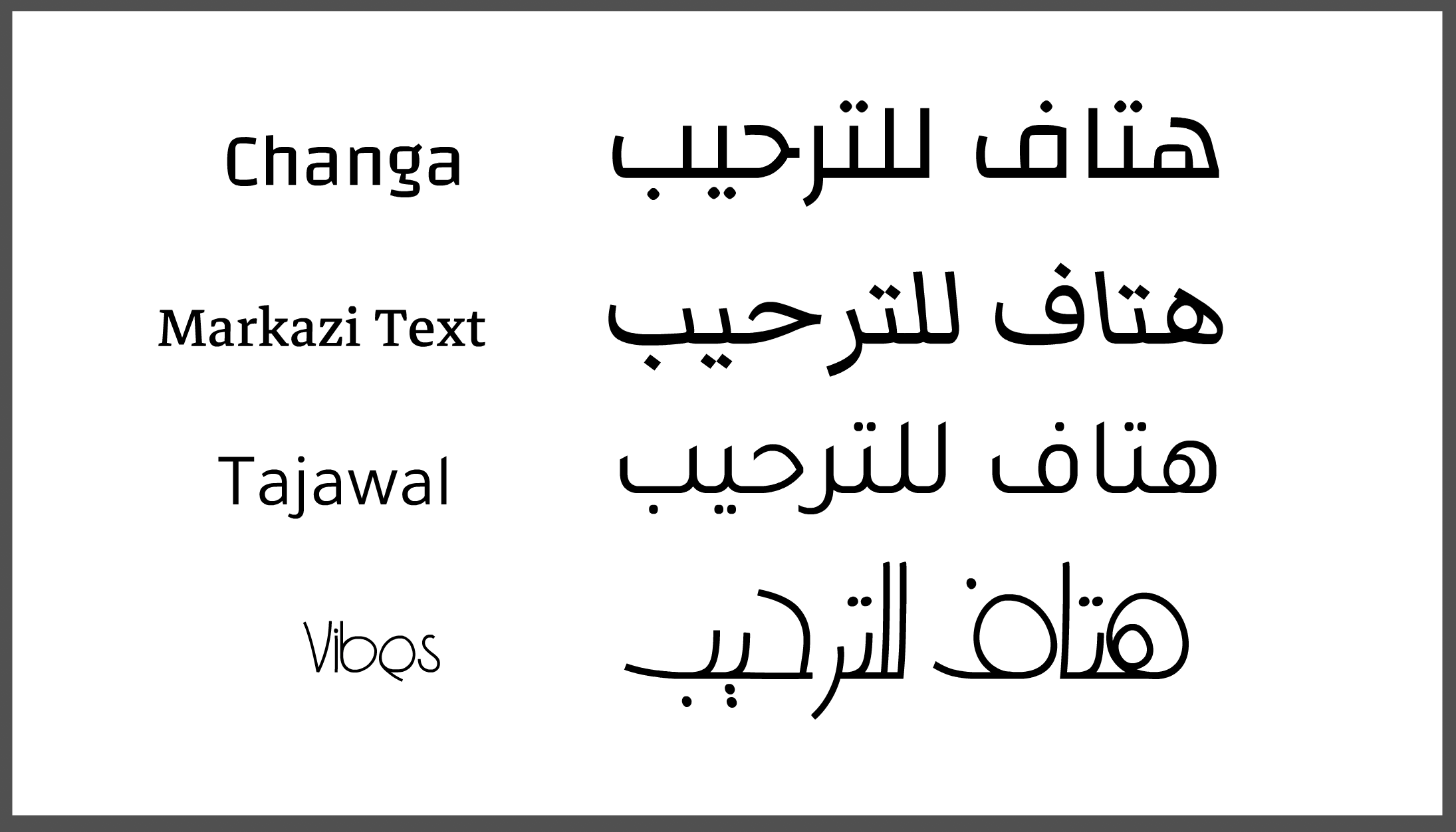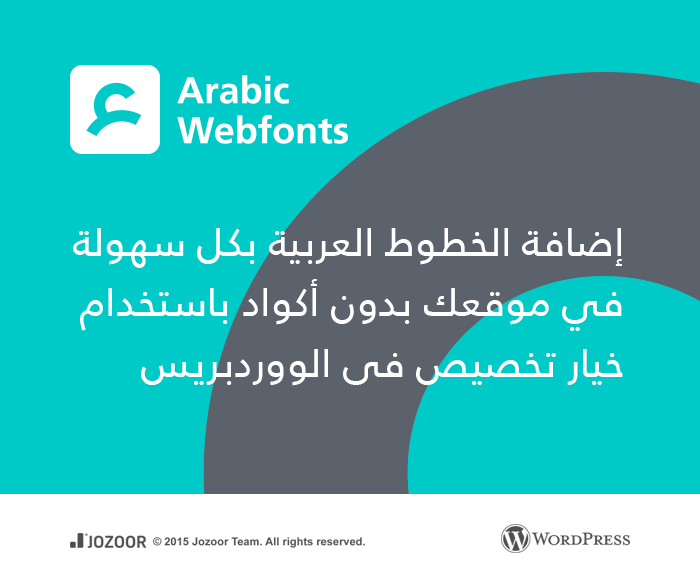
Font Arabic For Wordpress . An easy way to add arabic fonts to any theme without coding using wordpress customizer. This plugin integrates with the wordpress. An easy way to add arabic fonts to any theme without coding using wordpress customizer. An easy way to add arabic fonts to any theme without coding using wordpress customizer. This plugin integrates with the wordpress customizer so you can preview. Almarai is a modern arabic and sans serif latin typeface family in 4 weights. El messiri is a modern arabic typeface family designed by mohamed gaber (arabic) that began with jovanny lemonad's latin and cyrillic. Control font type, size, and style in. The font was created by boutros™ for optimal readability and. Noto sans arabic has multiple weights. This plugin integrates with the wordpress customizer so you can preview. Noto sans arabic is an unmodulated (“sans serif”) design for texts in the middle eastern arabic script. An easy way to add arabic fonts to any theme without coding using wordpress customizer. An easy way to add arabic fonts to any theme without coding using wordpress customizer.
The font was created by boutros™ for optimal readability and. Noto sans arabic has multiple weights. El messiri is a modern arabic typeface family designed by mohamed gaber (arabic) that began with jovanny lemonad's latin and cyrillic. An easy way to add arabic fonts to any theme without coding using wordpress customizer. An easy way to add arabic fonts to any theme without coding using wordpress customizer. Control font type, size, and style in. An easy way to add arabic fonts to any theme without coding using wordpress customizer. Noto sans arabic is an unmodulated (“sans serif”) design for texts in the middle eastern arabic script. An easy way to add arabic fonts to any theme without coding using wordpress customizer. Almarai is a modern arabic and sans serif latin typeface family in 4 weights.
Font Arabic For Wordpress An easy way to add arabic fonts to any theme without coding using wordpress customizer. An easy way to add arabic fonts to any theme without coding using wordpress customizer. An easy way to add arabic fonts to any theme without coding using wordpress customizer. Control font type, size, and style in. An easy way to add arabic fonts to any theme without coding using wordpress customizer. Noto sans arabic has multiple weights. This plugin integrates with the wordpress customizer so you can preview. El messiri is a modern arabic typeface family designed by mohamed gaber (arabic) that began with jovanny lemonad's latin and cyrillic. Noto sans arabic is an unmodulated (“sans serif”) design for texts in the middle eastern arabic script. An easy way to add arabic fonts to any theme without coding using wordpress customizer. This plugin integrates with the wordpress. An easy way to add arabic fonts to any theme without coding using wordpress customizer. The font was created by boutros™ for optimal readability and. This plugin integrates with the wordpress customizer so you can preview. Almarai is a modern arabic and sans serif latin typeface family in 4 weights.
Simple Arabic Calligraphy Calligraph Choices Font Arabic For Wordpress An easy way to add arabic fonts to any theme without coding using wordpress customizer. This plugin integrates with the wordpress customizer so you can preview. An easy way to add arabic fonts to any theme without coding using wordpress customizer. Noto sans arabic is an unmodulated (“sans serif”) design for texts in the middle eastern arabic script. El messiri. Font Arabic For Wordpress.
Tashabok Arabic Font free download Font Arabic For Wordpress An easy way to add arabic fonts to any theme without coding using wordpress customizer. The font was created by boutros™ for optimal readability and. Noto sans arabic is an unmodulated (“sans serif”) design for texts in the middle eastern arabic script. Control font type, size, and style in. This plugin integrates with the wordpress customizer so you can preview.. Font Arabic For Wordpress.
Aqeeq Free Arabic Typeface Free Fonts Fribly Font Arabic For Wordpress Almarai is a modern arabic and sans serif latin typeface family in 4 weights. An easy way to add arabic fonts to any theme without coding using wordpress customizer. This plugin integrates with the wordpress customizer so you can preview. Noto sans arabic has multiple weights. This plugin integrates with the wordpress. El messiri is a modern arabic typeface family. Font Arabic For Wordpress.
Arabic Calligraphy Fonts Copy And Paste Calligraphy and Art Font Arabic For Wordpress This plugin integrates with the wordpress. An easy way to add arabic fonts to any theme without coding using wordpress customizer. This plugin integrates with the wordpress customizer so you can preview. Noto sans arabic is an unmodulated (“sans serif”) design for texts in the middle eastern arabic script. An easy way to add arabic fonts to any theme without. Font Arabic For Wordpress.
Talween Arabic Colorfont Arabic font, Floral font, Cool fonts Font Arabic For Wordpress Control font type, size, and style in. This plugin integrates with the wordpress customizer so you can preview. The font was created by boutros™ for optimal readability and. Noto sans arabic has multiple weights. This plugin integrates with the wordpress. An easy way to add arabic fonts to any theme without coding using wordpress customizer. This plugin integrates with the. Font Arabic For Wordpress.